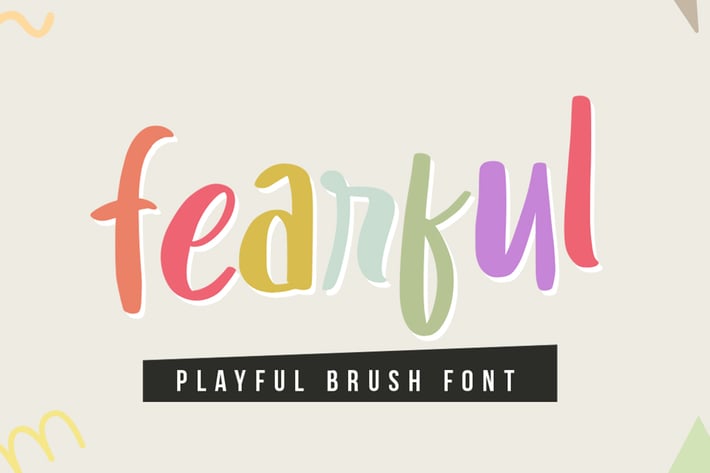
Fearful - Playful Typeface
Fearful is an adorable and playful display font. It will add a joyful touch to your crafting designs, school projects and anything else that may need a happy vibe! and use it to brighten up any crafting project!